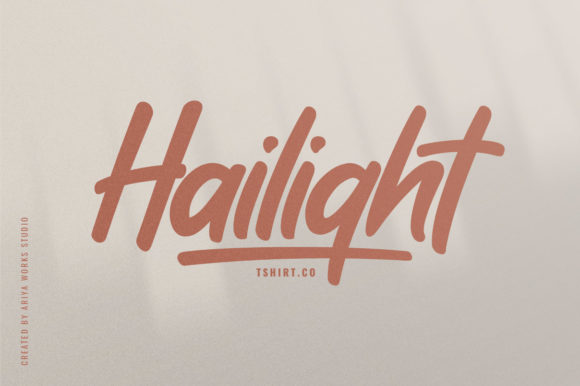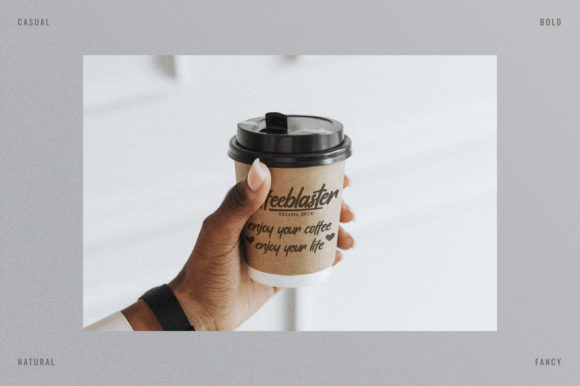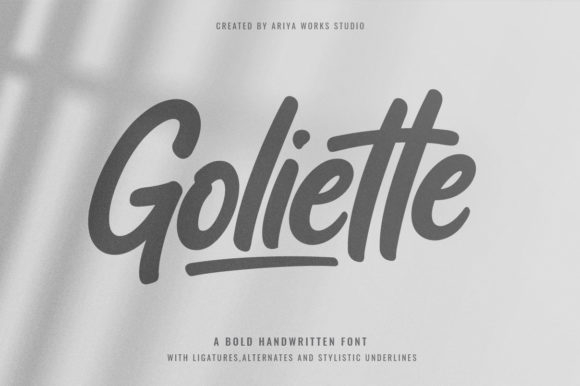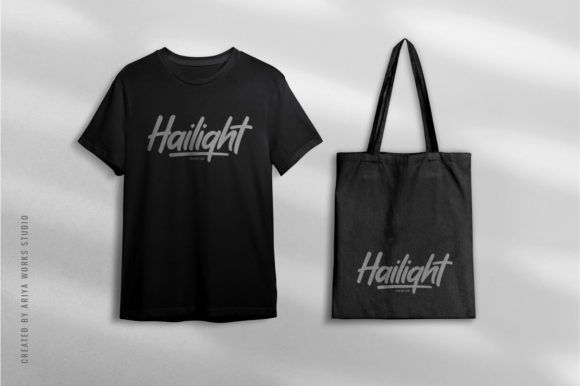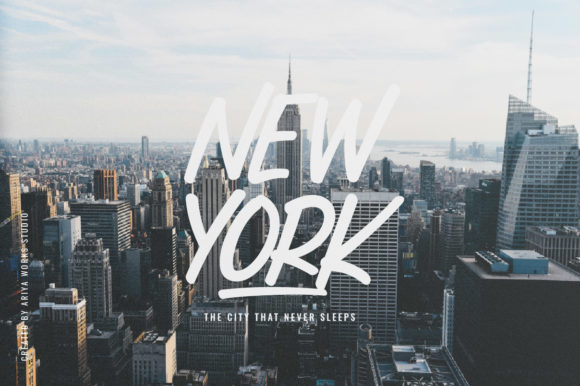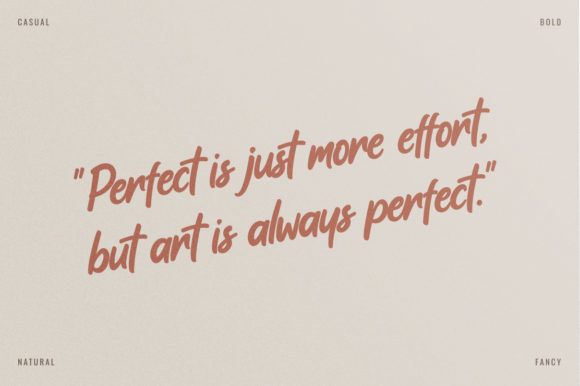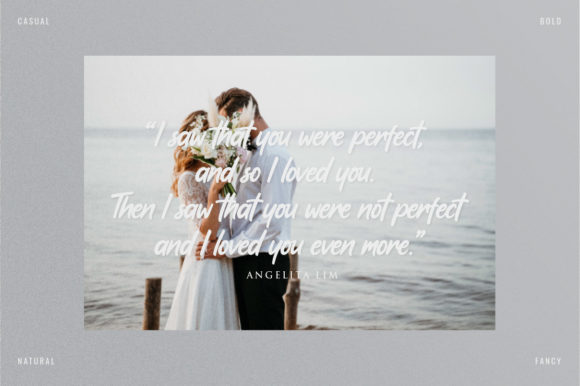
Goliette Font
About Goliette Font
Goliette is a cool and casual handwritten font. This font is PUA encoded which means you can access all of the glyphs and swashes with ease!